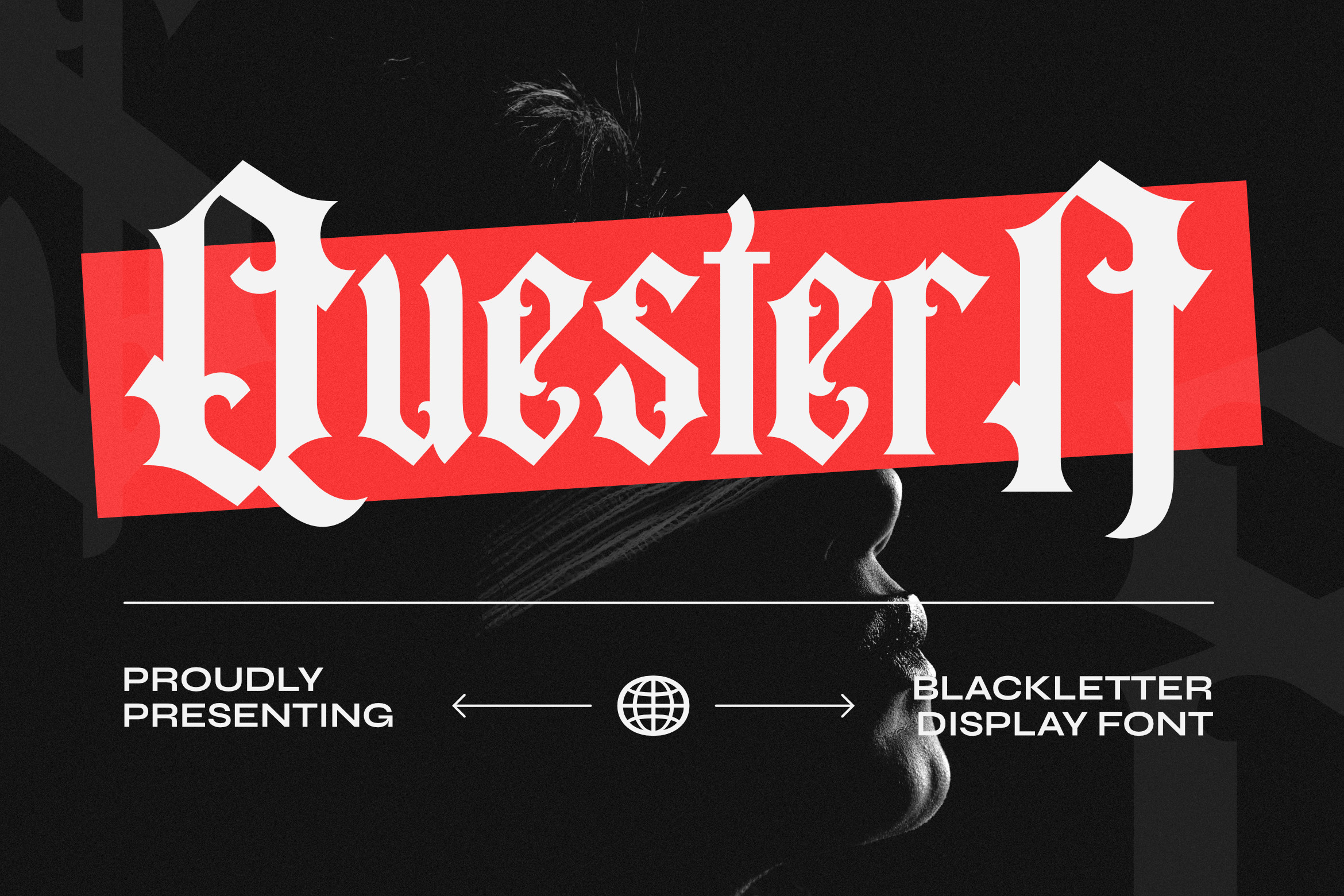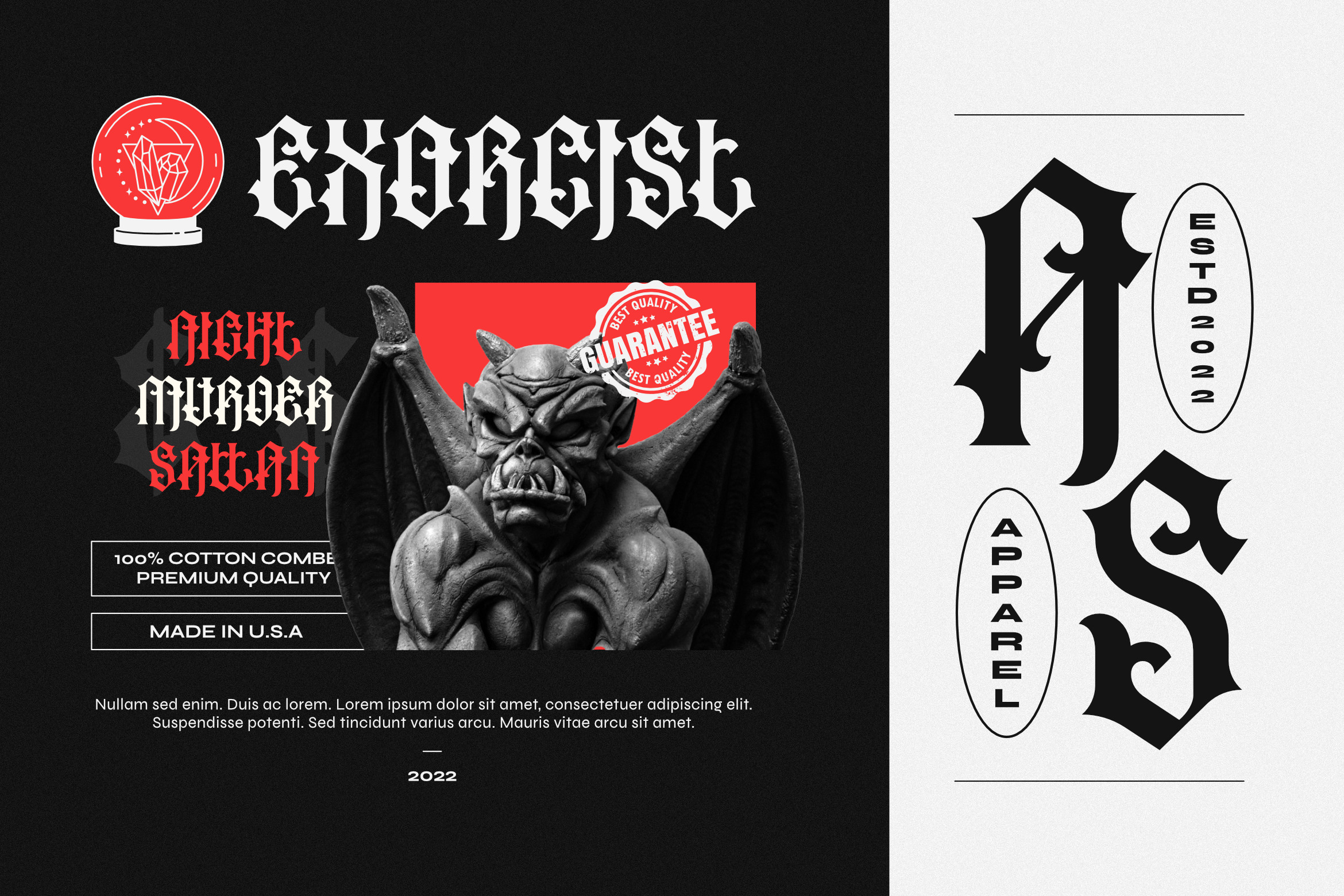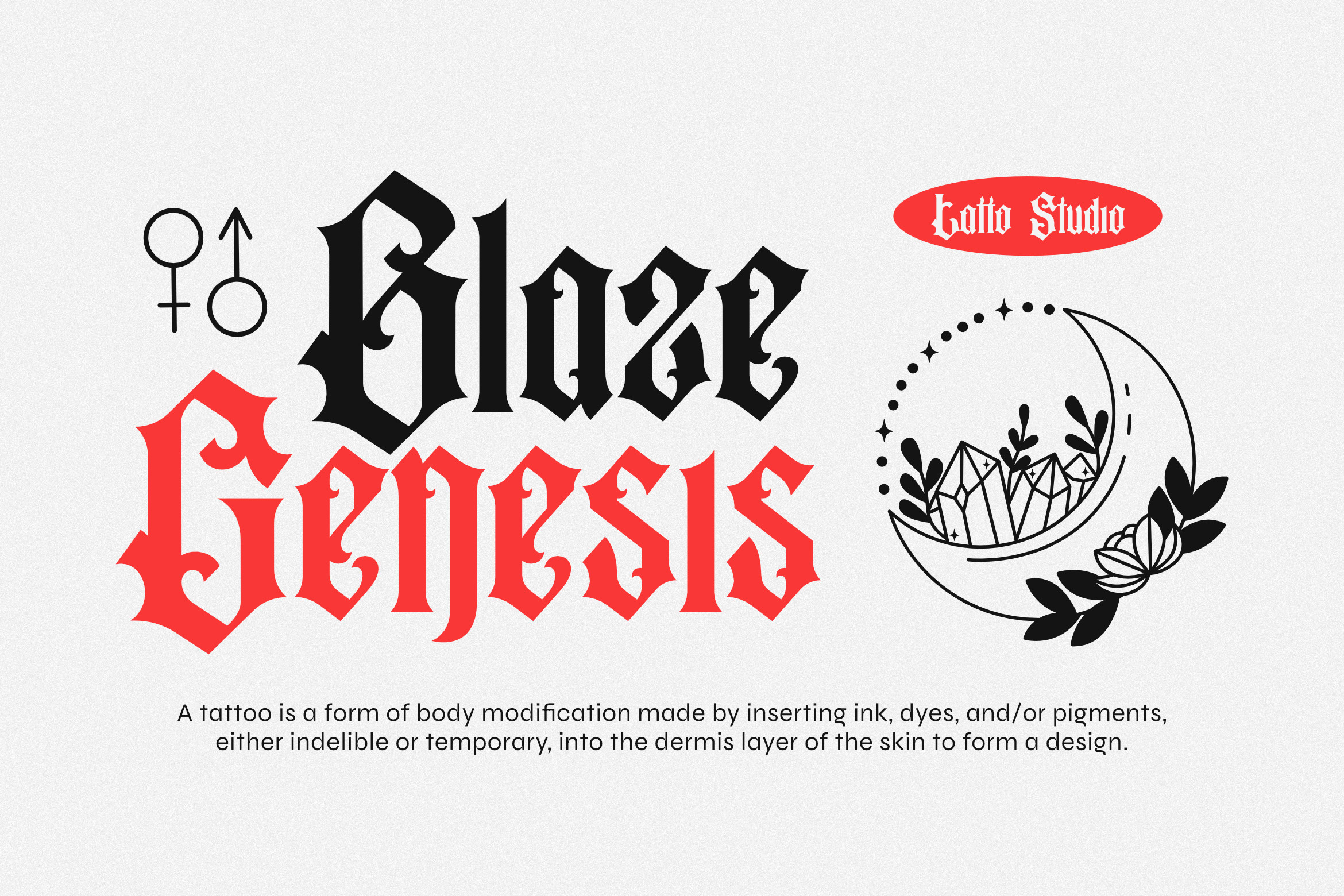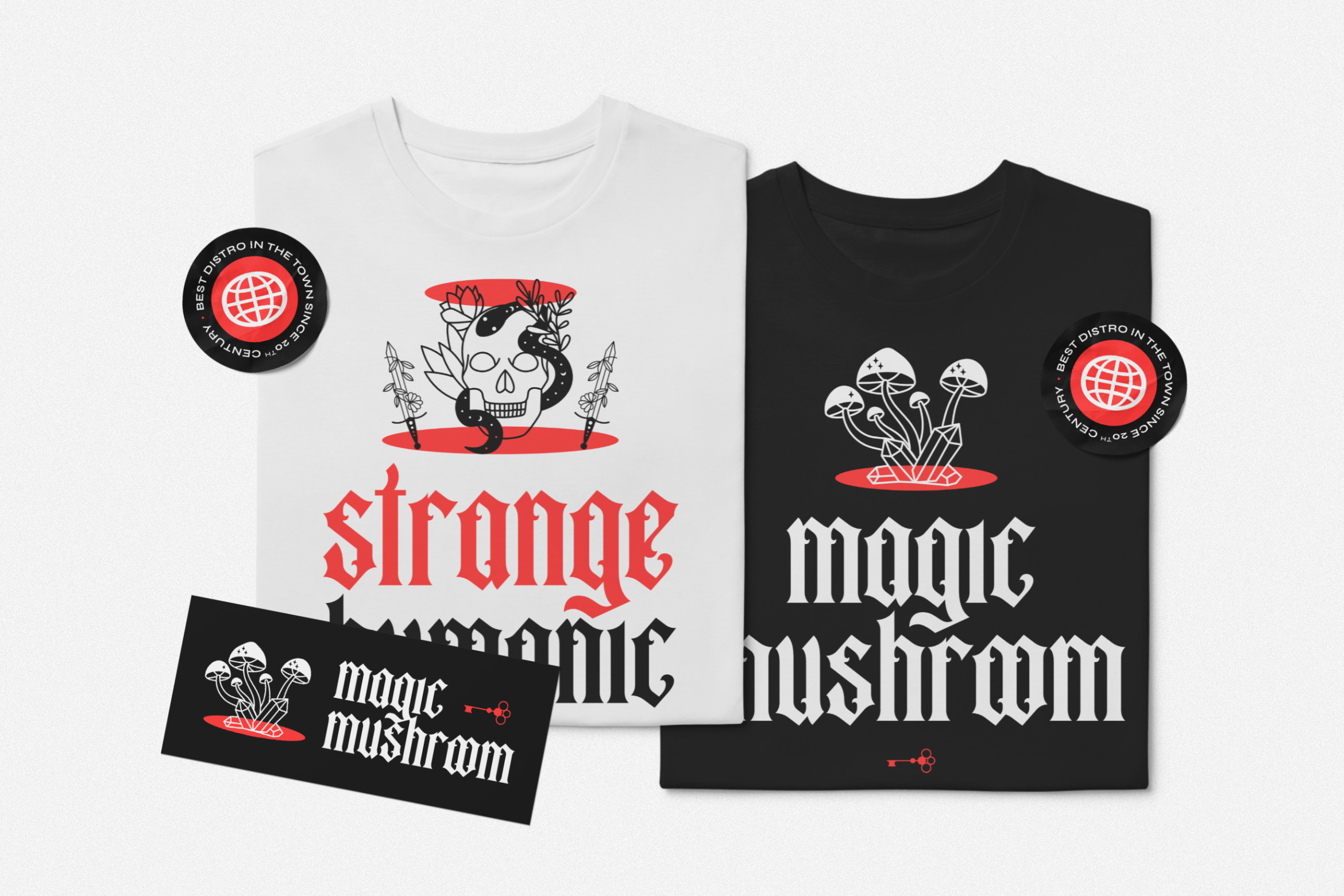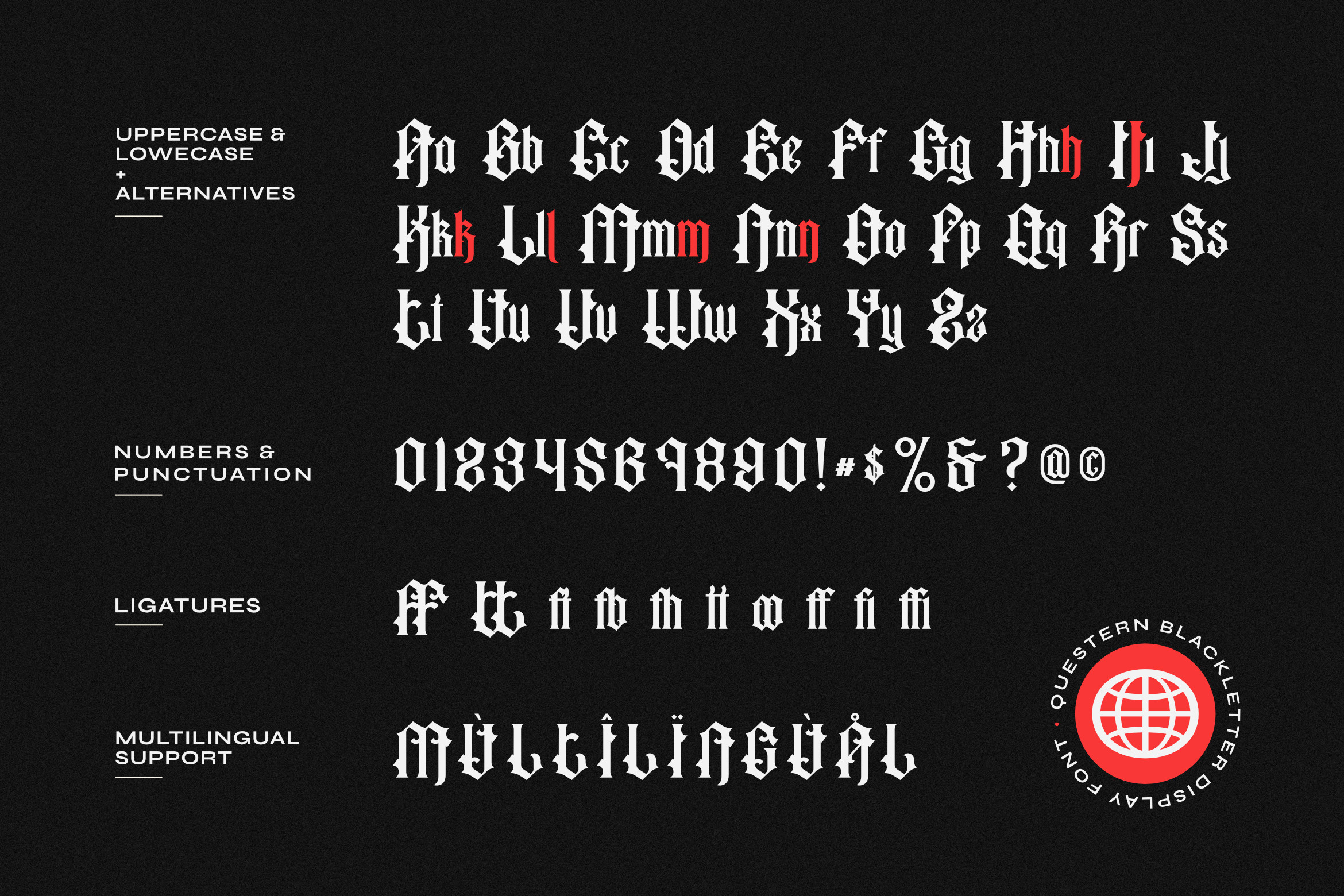
Questern is a bold and expressive blackletter display font that fuses medieval aesthetics with a modern attitude. With its sharp terminals, pointed edges, and ornamental flair, Questern is perfect for tattoo studios, gothic merchandise, metal band posters, or any project that craves dark elegance and vintage rebellion. The font brings a dramatic and mysterious tone that feels both rebellious and refined.
Equipped with uppercase, lowercase, alternates, ligatures, punctuation, numerals, and multilingual support, Questern offers versatility for both traditional and contemporary design needs. Whether you’re crafting apparel graphics, editorial headlines, or mystic-themed visuals, Questern adds a distinct personality and edge to your typography.